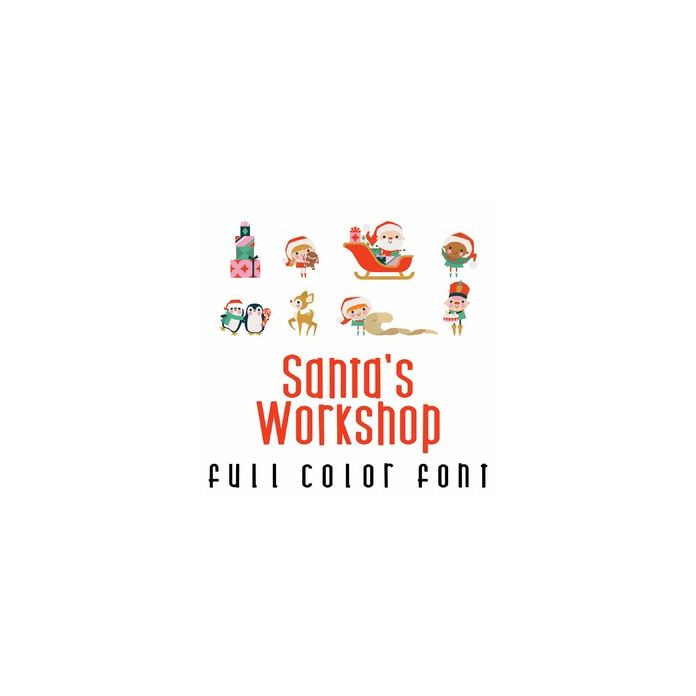
This fun full color doodlebat font features 26 adorable Christmas workshop imagery. Perfect for cards, crafts, gifts, decor, scrap book pages, planner stickers and more!